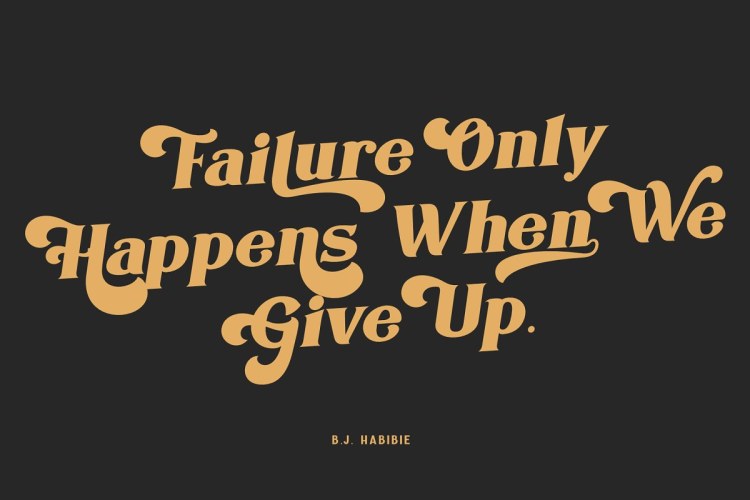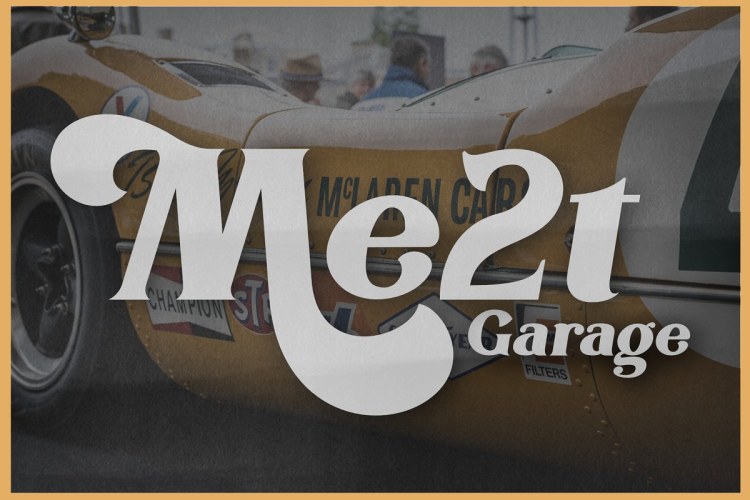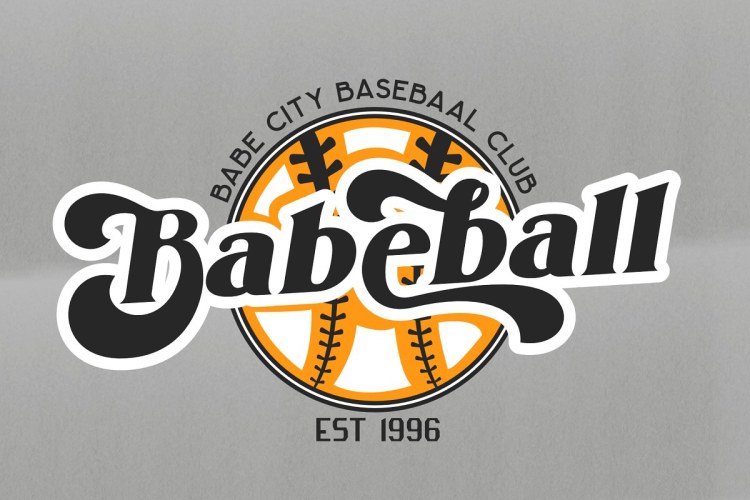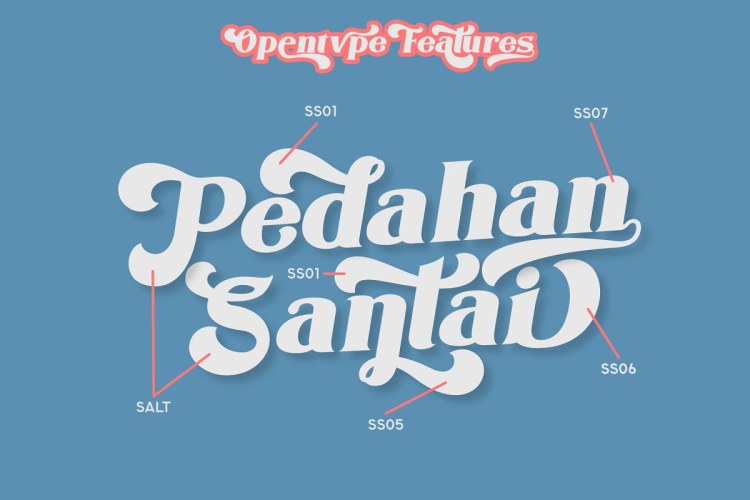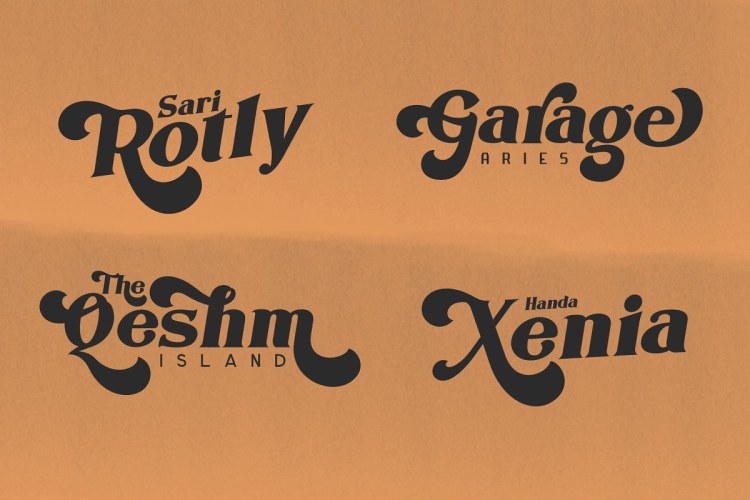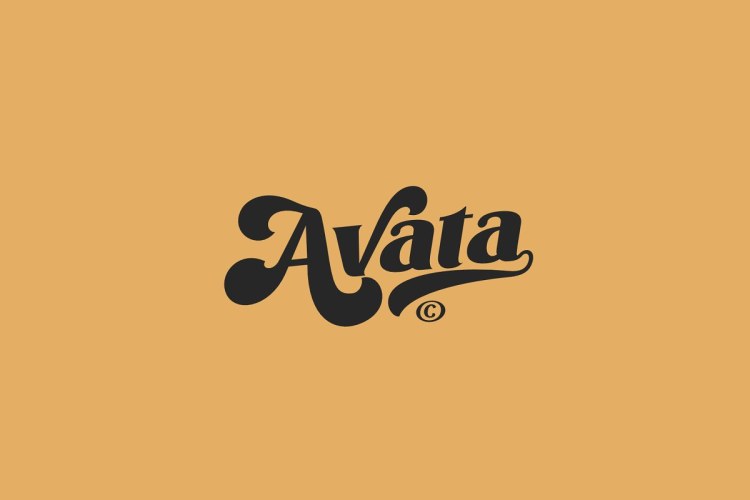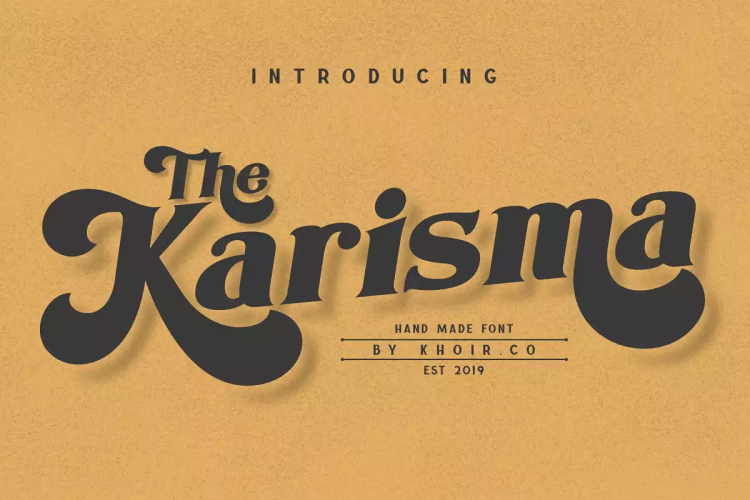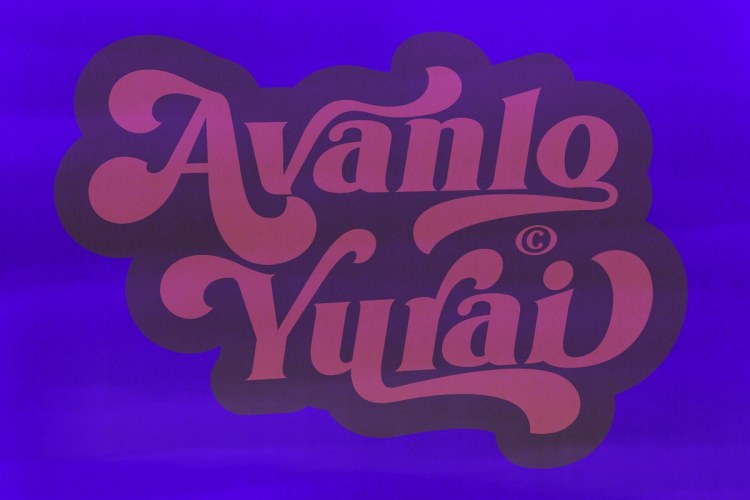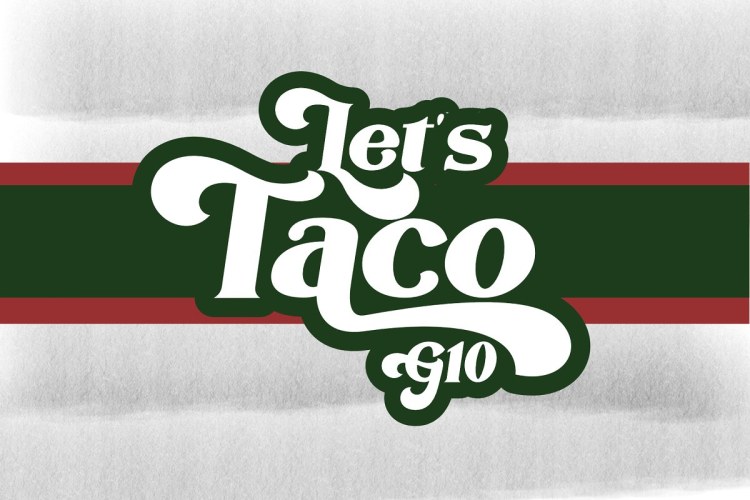
Karisma Font
Introducing the new Karisma font, a retro-style serif font inspired by typographic designs from the 60s to the 70s, Karisma has a variety of OpenType Features fonts, so…
Introducing the new Karisma font, a retro-style serif font inspired by typographic designs from the 60s to the 70s, Karisma has a variety of OpenType Features fonts, so that it can help you create the design you want, so what are you waiting for?
Where Karisma Font works best
Karisma Font gives long-form text a classic, trustworthy rhythm — ideal for magazine spreads, annual reports and book interiors.
Pair Karisma Font with generous letter-spacing for wordmarks in fashion, hospitality, wine and jewellery branding.
Use Karisma Font for slide titles in Keynote, PowerPoint or Google Slides to add authority without looking dated.
What is Karisma Font good for?